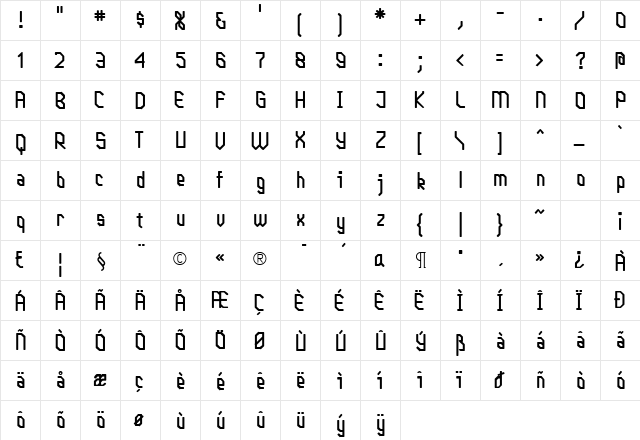
WhichitTwo Bold
Design Context for WhichitTwo Typeface
WhichitTwo is a composed and adaptable typeface that performs quietly and consistently across a wide range of design contexts. The heavy weight commands attention and anchors typographic hierarchies.